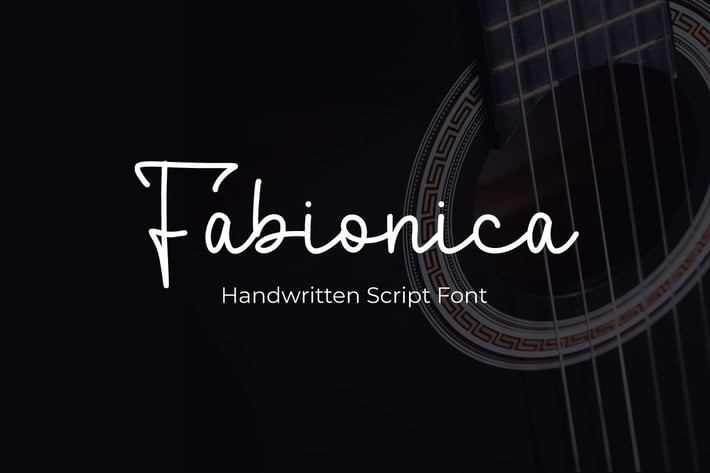
Fabionica - Handwritten Script Font
Introducing Fabionica – a captivating handwritten font that exudes elegance and personality. Infused with organic strokes and graceful curves, this font adds a touch of sophistication to your projects while maintaining a sense of warmth and charm.
Fabionica is meticulously crafted to emulate the fluidity and natural flow of handwriting, making it perfect for a variety of design purposes. Whether you're creating wedding invitations, branding materials, greeting cards, or social media graphics, this font effortlessly elevates your message with its graceful aesthetic.